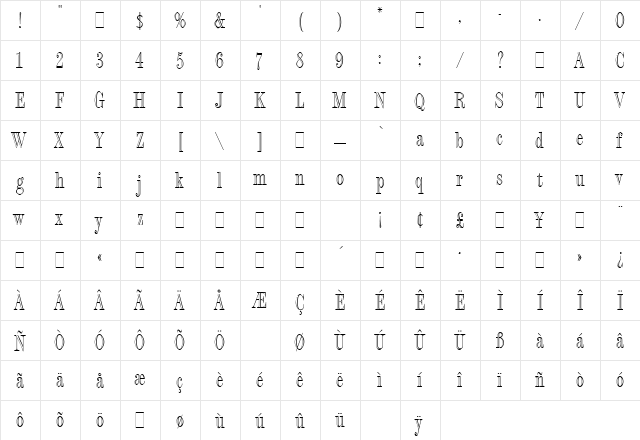
Fashion Engraved LET Plain
Fashion Engraved LET brings ornamental detail and strong personality to headlines and identities, where visual impact matters more than quiet functionality.
Font Pairing: Pair with a clean neutral sans-serif for body copy to let Fashion Engraved LET's character lead without overwhelming the composition.
Pro Tip: Treat Fashion Engraved LET as the centrepiece of your typographic hierarchy. One strong heading set in a decorative face can carry an entire layout.